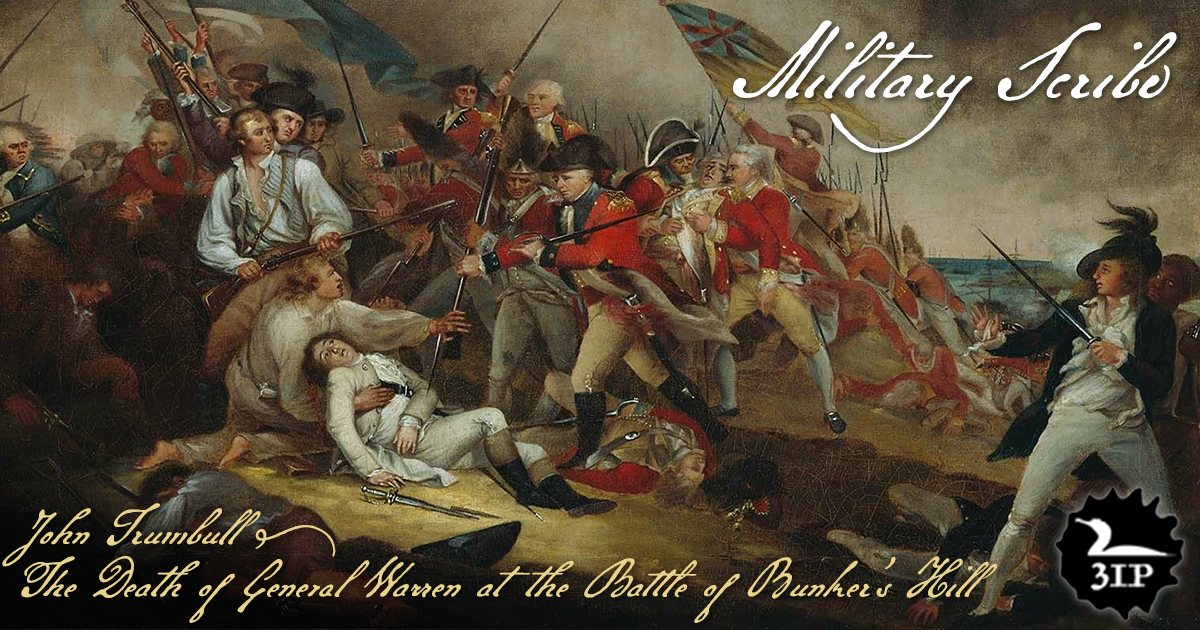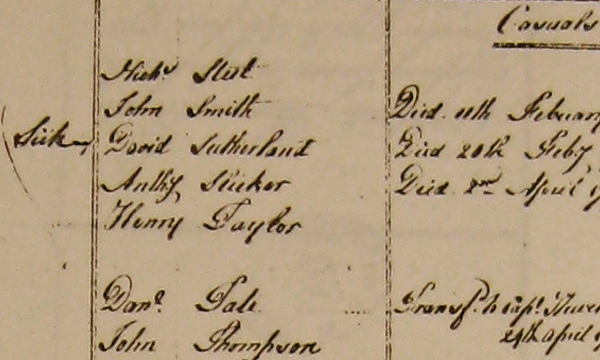
Military Scribe.
Historians solve puzzles by reading multiple clues. Their job is to interpret information gleaned from manifold sources—archaeological discoveries, ancient books, newspaper archives, boring old handwritten records—and come up with as accurate a narrative as they can of a particular time, place, event.
Sounds like a rather dry, academic pursuit—but is it really?
Heck, my devoted ma spent time as a historical librarian—and even I have only yet begun to appreciate the allure. Turns out those old handwritten records aren’t as boring as they might first appear.
Take my latest historical typeface, just released—a font I call Military Scribe. The inspiration came from a group of digitized military records from the 1770s sent to me by a friend and correspondent: muster rolls of the Tenth Regiment of Foot, a unit of British soldiers who fought on American soil in the early days of the Revolutionary War.
Compact, legible script.
Muster rolls. Lists of names of Englishmen, surrounded by dates and contractual boilerplate. Routine records written at a desk in an office somewhere by obscure military clerks who knew how to wield a pen.
I had about fifty pages to work with, spanning 1774 to 1779 and drafted by at least three or four different scribes. Right away I decided to concentrate on the work of one penman in particular—a clerk from the earlier part of the period with a particularly legible, compact hand—with some help from the script of another who wrote with a little more flair. The former seemed to take his job seriously, wrote legibly while cramming a lot in; the latter I took for a bit of a dandy, someone who might’ve stopped to admire what he’d written.
Fancier script.
What I do involves looking very closely at strokes and curves and shapes while also contemplating things at arm’s length. Mired in this kind of study, I can’t help but get a feel for the personalities of these people. And then the mind plays a sort of trick, and the years sort of slough away, and “history” starts to seem like a year or two ago.
First are the names of the men of the Tenth of Foot. A few sound old and peculiar, like Bartholomew Haycock or a soldier named William Frapwell, but I think I met Frank Cooper and John Marshall at a party. Then come the verbs that appear next to the names—“transferred,” “discharged,” “sick,” “deserted,” “died.” You start to get a feel for the time and place and people.
18th century dittos.
Invariably you learn things. From the rosters of the Tenth of Foot I found out that the British spelling of sergeant was “serjeant” until about a half-century ago. I also learned that, in handwritten history, the term “ditto” was as serviceable 240 years ago as it is today—and that “do” was an acceptable abbreviation. In fact, I learned so many new abbreviations for names that I included a few in the font.
But one name in particular caught my eye, a captain named Mundy Pole. I’d never heard the name before and had to make sure I was reading it right and googled the fellow—and come to find out he played a role in the famous events of April 1775 in and around Concord, Massachusetts.
Mention of Capt. Mundy Pole.
“Captain Mundy Pole of the Tenth Regiment with one hundred men had been detailed by Lieut.-Col. Smith for guard duty at the South Bridge. He was also instructed to destroy any public stores that he might find in that vinicity.” —The Battle of April 19 1775, by Frank Warren Coburn (1912)
[My listing of Capt. Pole is from later that year.]
And this discovery got me researching other old accounts of the Battles of Lexington and Concord—one of the most interesting coming in the latter pages of the Massachusetts Historical Society’s copy of General Gage’s Instructions of 22d February 1775. Captain Pole is mentioned there, too. Check it out.
Historical re-enactors still faithfully recreate this expedition of the Tenth of Foot—the grenadiers and light infantry units who were among the first to come face to face with the “rebel” militias and Minutemen of inland Massachusetts, scene of Emerson’s “shot heard round the world.”
But no one writes muster rolls by hand anymore, I’m pretty sure.
Military Scribe font